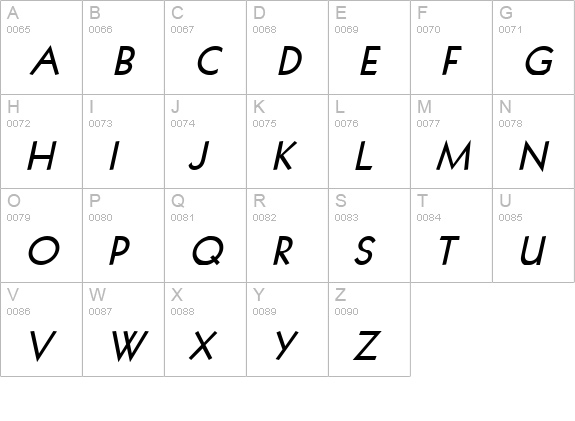
Geo 112 Bold Italic is a strong, high-contrast, italic variant in the Geo typeface family \xE2\x80\x94 well suited to headlines, attention-grabbing titles, and strong calls-to-action.
Geo 112 Bold Italic is a sleek and modern font that exudes confidence and sophistication. With its bold yet elegant design, this font is perfect for making a statement in your designs. The geometric shapes and sharp angles of Geo 112 Bold Italic give it a contemporary and edgy look that will surely catch the eye. This versatile font is ideal for a wide range of design projects, from branding to editorial design to web design. Whether you're creating a logo, poster, website, or any other project, Geo 112 Bold Italic will add a touch of style and flair. And the best part? Geo 112 Bold Italic is completely free to download at FontsMarket.com. So you can elevate your designs without breaking the bank. Don't miss out on this opportunity to add a modern and bold touch to your projects with Geo 112 Bold Italic.